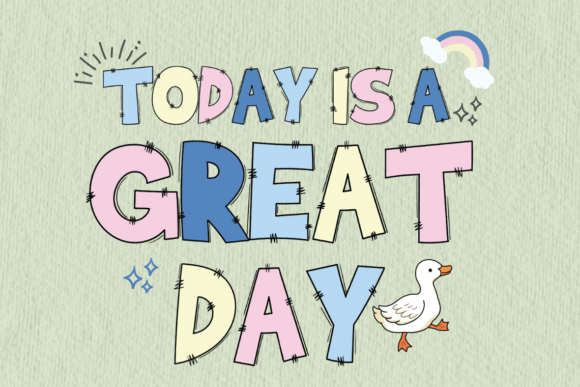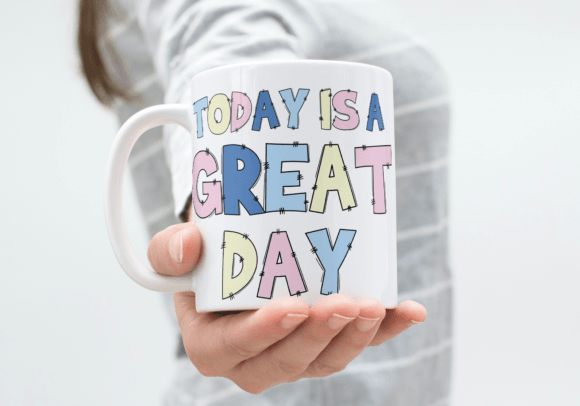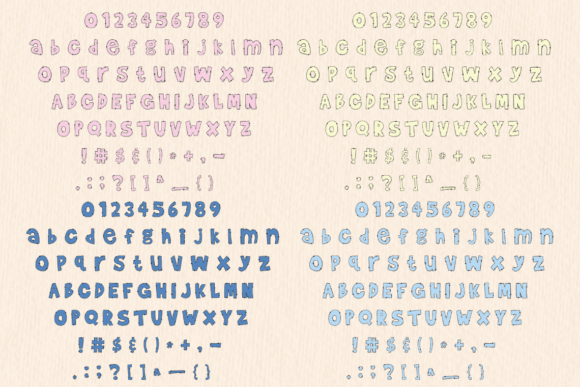
Introducing Fancy Spring: The Perfect Font for Vibrant Designs
As the seasons change and spring arrives, it’s the perfect time to refresh your design projects with a fun and vibrant typeface. Look no further than Fancy Spring, a charming font that’s ideal for capturing the essence of the season. With its playful and sophisticated charm, this font is perfect for designing posters, invitations, headers, titles, greeting cards, lettering, and more.
A Font that Embodies the Spirit of Spring
Fancy Spring is a unique and creative font that’s designed to bring a touch of springtime magic to your designs. Its pastel colors and lively vibe make it perfect for weekends, holidays, Valentine’s themes, love, and various creative projects. Whether you’re a designer, crafter, or DIY enthusiast, this font is sure to elevate your designs and turn each piece into a visually engaging and creatively crafted expression.
What Makes Fancy Spring Special?
Fancy Spring is a color font (Opentype-SVG) that’s compatible with popular design software such as PhotoShop and Illustrator. This means you can easily incorporate this font into your designs and take advantage of its vibrant colors and playful style. The font comes with OTF and/or TTF files, which can be used on a variety of platforms.
With Fancy Spring, the design possibilities are endless. Here are just a few ideas to get you started:
- Design stunning posters and flyers that capture the essence of spring
- Create beautiful invitations for parties, weddings, and other special events
- Develop eye-catching headers and titles for your blog or website
- Make your greeting cards and lettering projects stand out with this unique font
- Use Fancy Spring to add a touch of whimsy to your Valentine’s Day designs
Why Choose Fancy Spring?
So why choose Fancy Spring for your design projects? Here are just a few reasons:
- Unique and creative style: Fancy Spring offers a fresh and playful take on traditional fonts
- Vibrant colors: The pastel colors of this font are perfect for spring-themed designs
- Easy to use: Fancy Spring is compatible with popular design software, making it easy to incorporate into your projects
- Sophisticated charm: This font adds a touch of elegance and whimsy to any design
Get Creative with Fancy Spring
In conclusion, Fancy Spring is a unique and creative font that’s perfect for designers, crafters, and DIY enthusiasts looking to add a touch of springtime magic to their projects. With its playful and sophisticated charm, this font is ideal for a wide range of design applications. So why wait? Download Fancy Spring today and start creating stunning designs that capture the essence of the season!